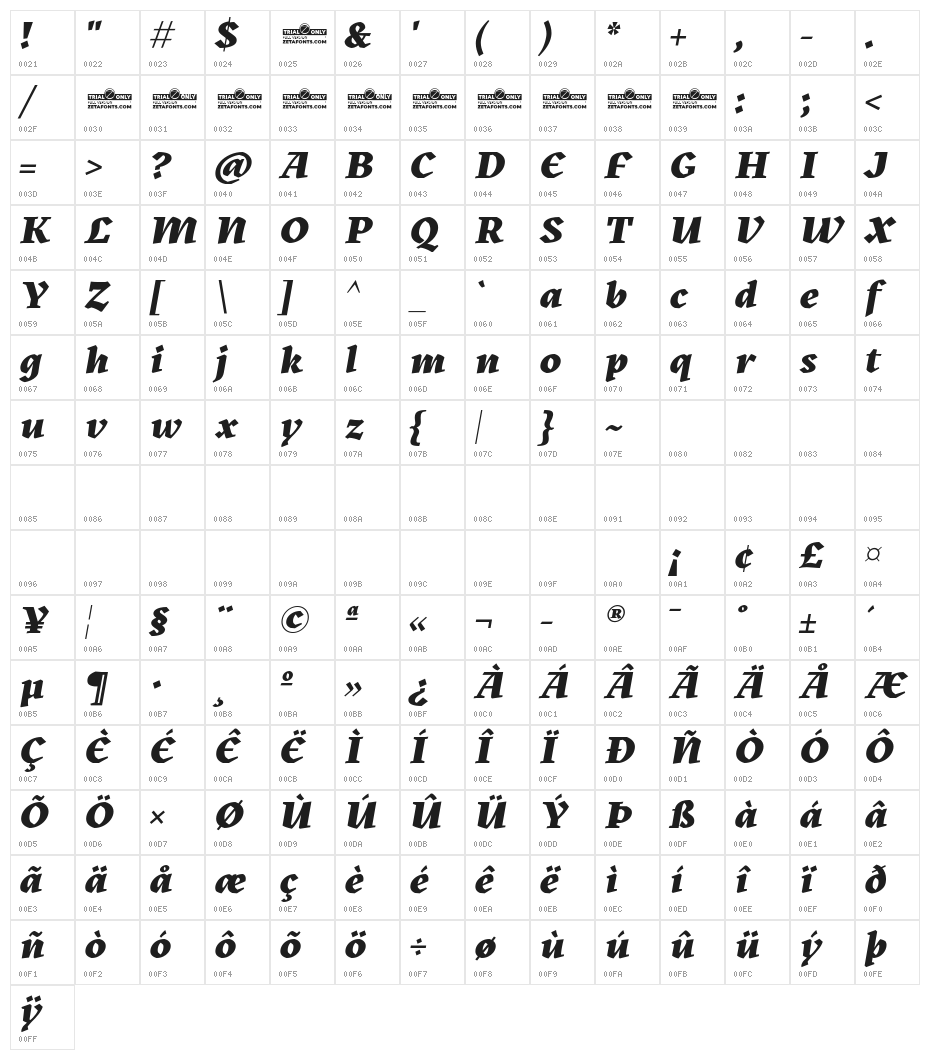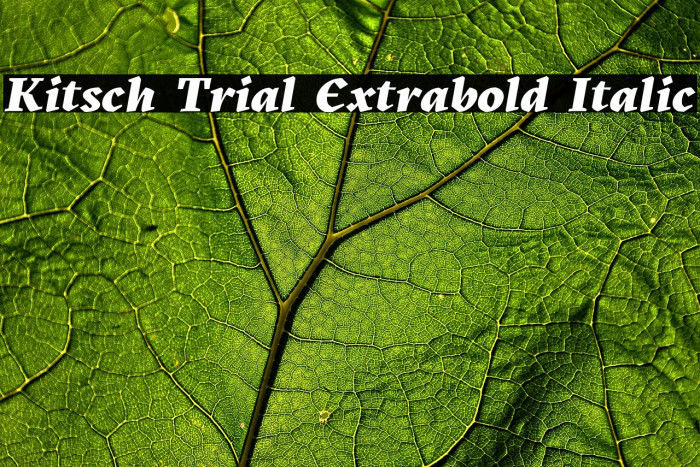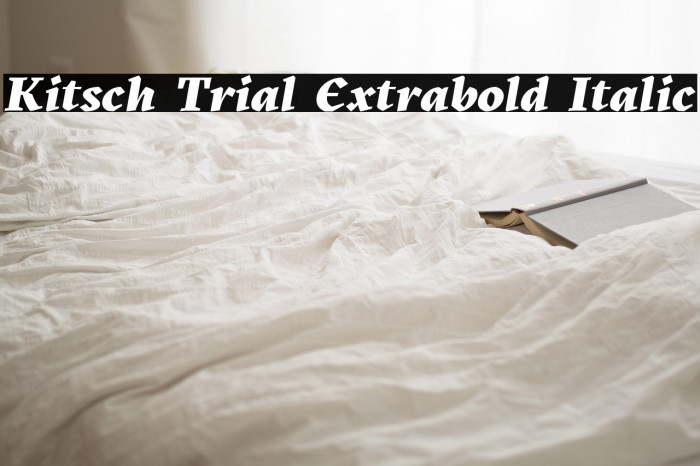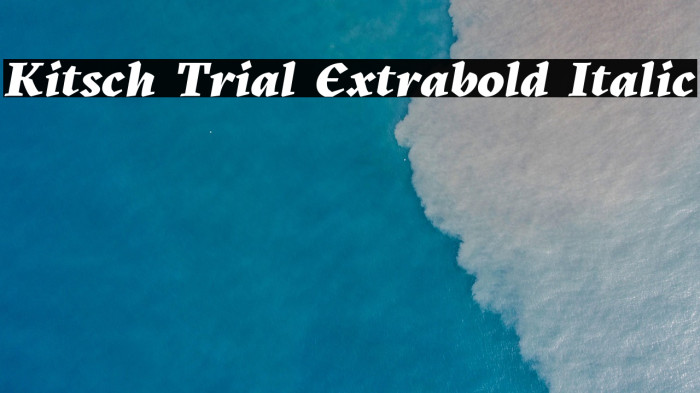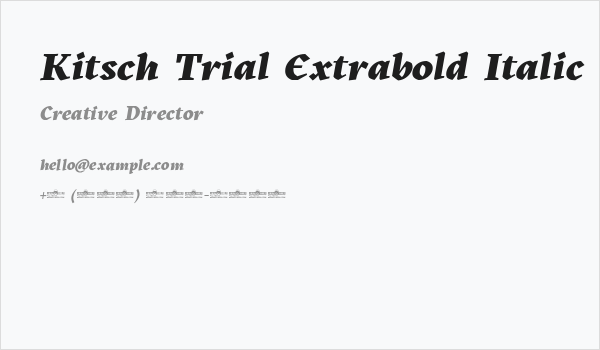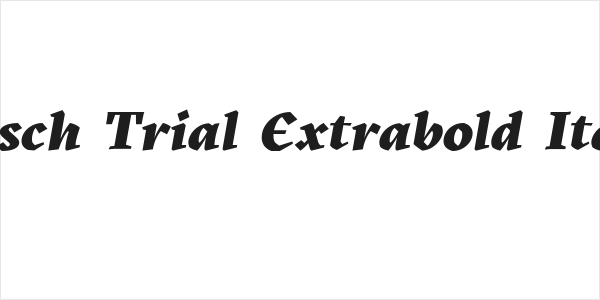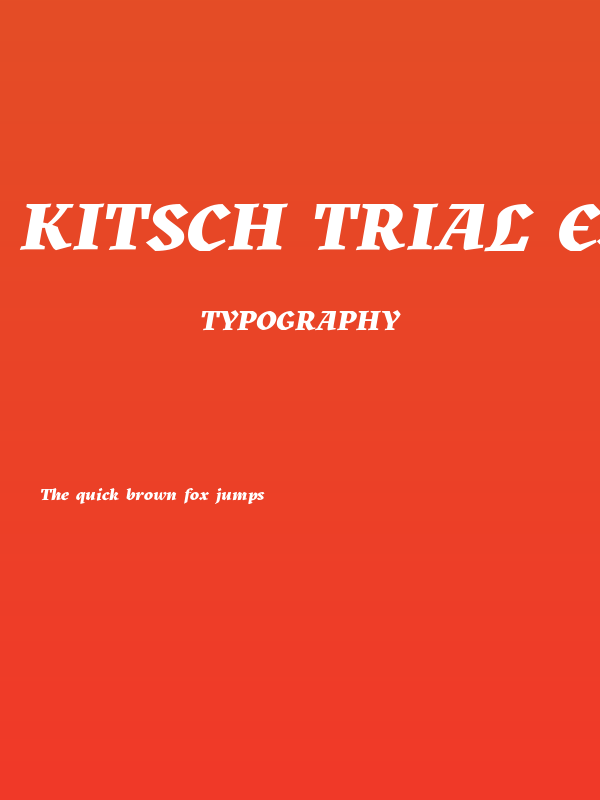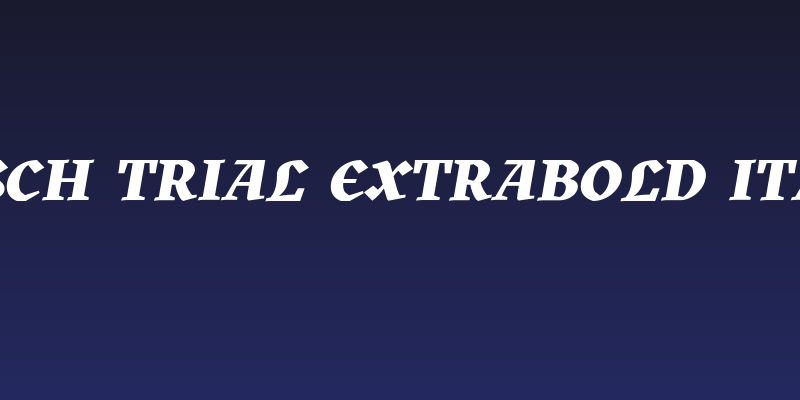
Kitsch Trial Extrabold Italic Font
Kitsch Trial Extrabold Italic Description
This font exhibits a bold and dynamic style with a strong italic slant, giving it a sense of movement and energy. The characters are robust and thick, emphasizing their presence on the page. The serifs are pronounced and angular, adding a touch of elegance and sophistication. The uppercase letters are particularly striking, with a commanding presence, while the lowercase letters maintain a consistent flow. The numbers and special characters are equally bold, ensuring readability and impact. Overall, this font combines traditional serif elements with a modern twist, making it suitable for various creative applications.
| Proposed Projects | Ideal for branding, headlines, posters, and any project requiring a strong, impactful typeface. |